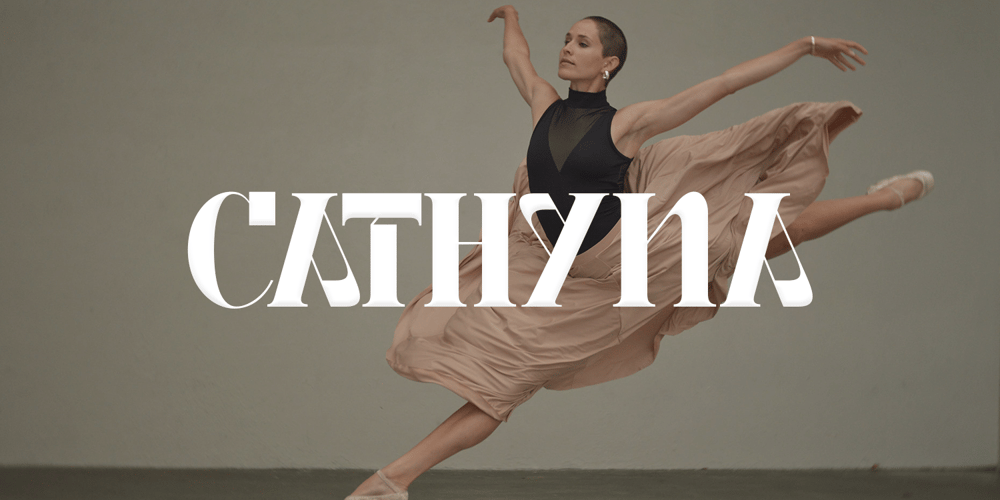
Cathyna Display Font Family was designed by Evin Tony and published by FoxType. Cathyna Display contains 1 styles and family package options. Introducing Cathyna Display new generation Decorative Typeface. Cathyna Typeface created with the vision of to attract the audience to your brand. The finest details of this typeface are methodically and mathematically created. Cathyna is created with all the tasks of a corporate font and also for the usage in a variety of projects, including branding, logos, titles, headlines, posters, screens, display, digital ads, and everything else.We are putting a lot of effort on this font as a long-term project.